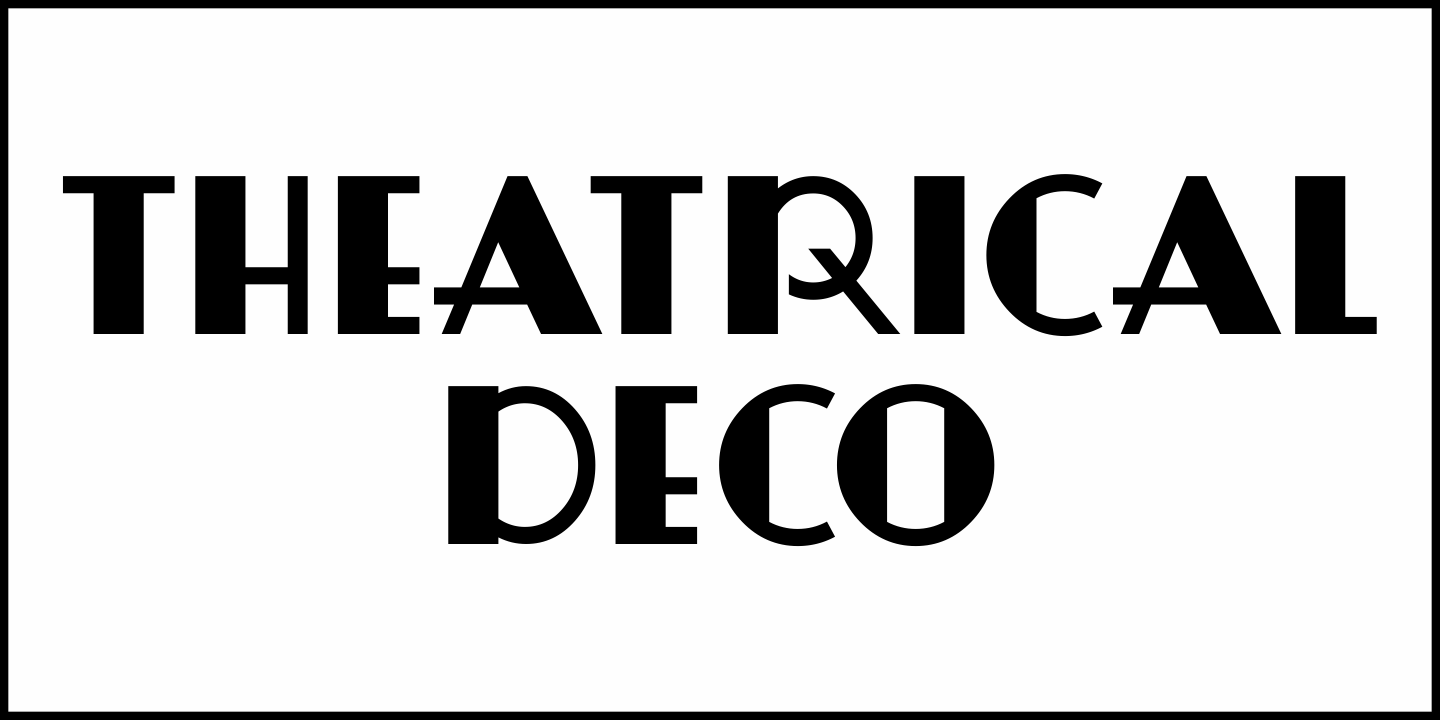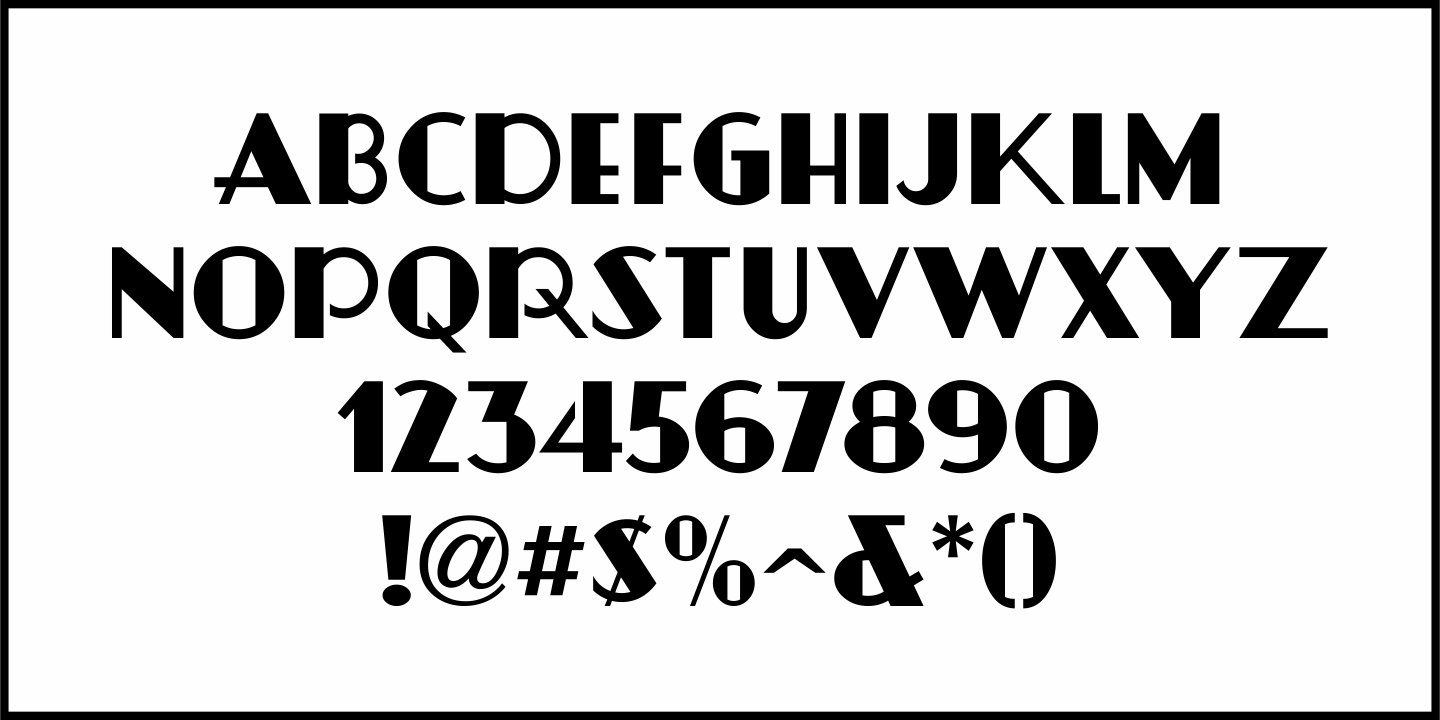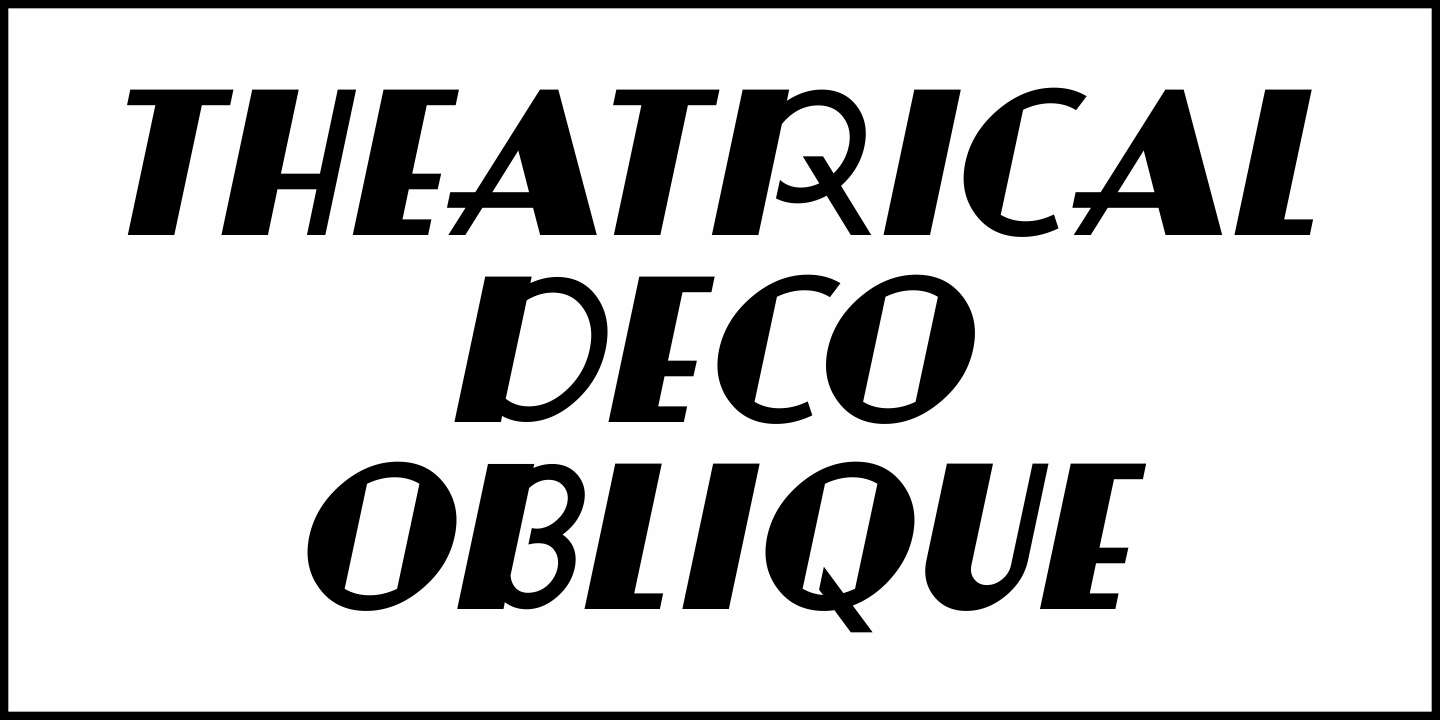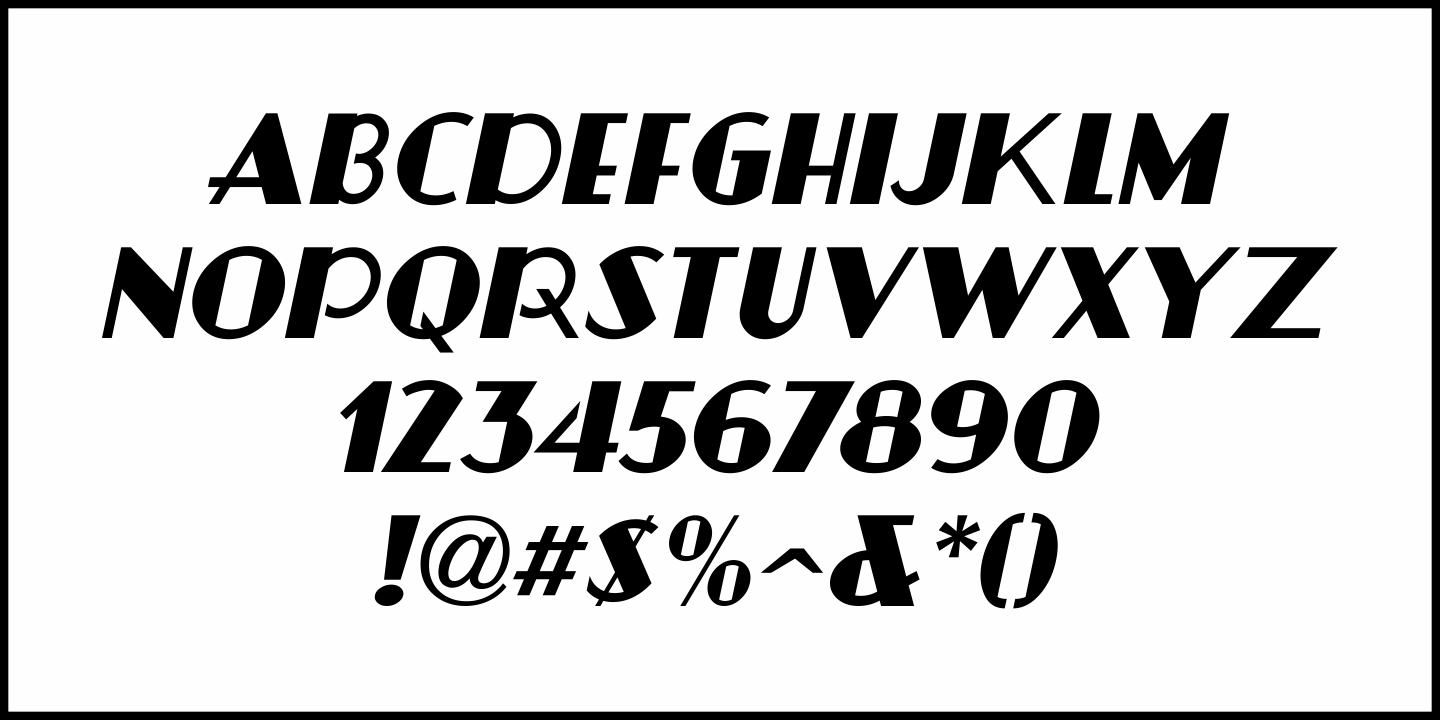
Theatrical Deco
An ad in the Feb. 14, 1928 issue of Film Daily for the movie "The Tragedy of Youth" features hand lettering in the classic Art Deco style of thick and thin strokes.
The ad served as a model for Theatrical Deco JNL, which is available in both regular and oblique versions.
Theatrical Deco JNL Regular by Jeff Levine Fonts